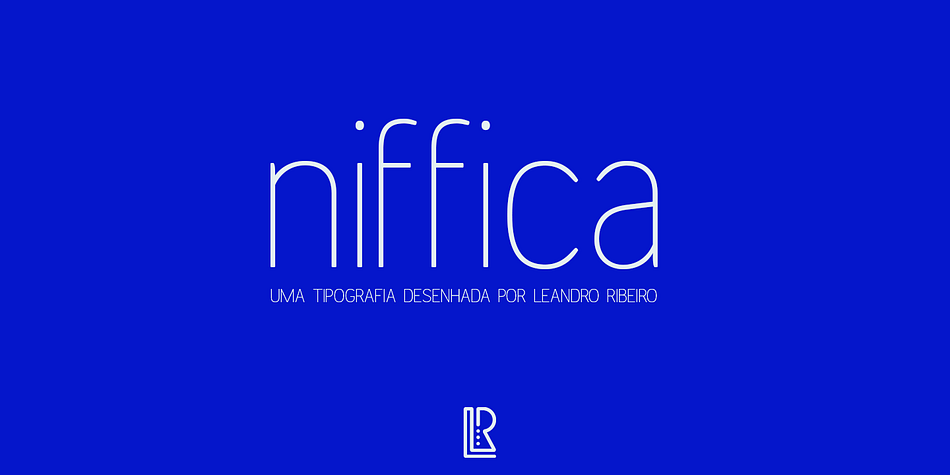
Niffica
Designed by Leandro Ribeiro Machado, Niffica is a sans serif font published by Leandro Ribeiro Machado.
Niffica is suitable for any use: book text, documentation, business reports, business correspondence, magazines, newspapers, posters, advertisements, multimedia, and corporate design.